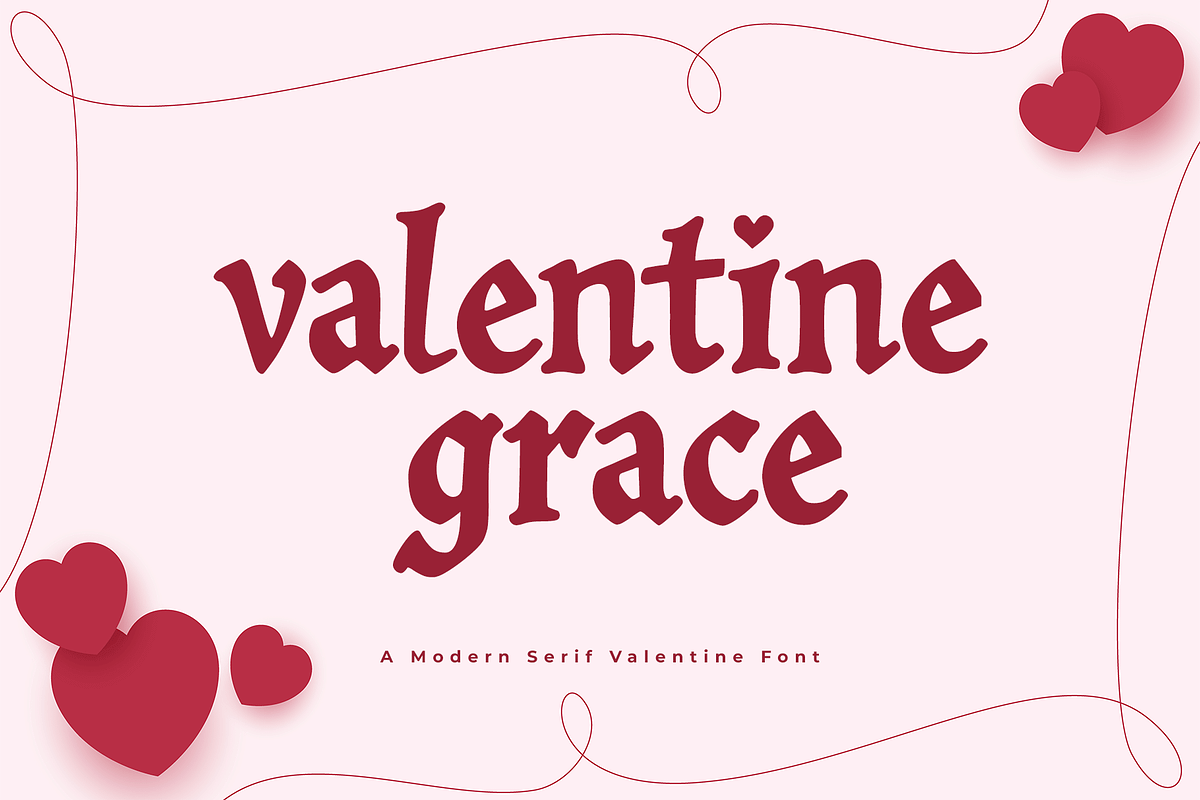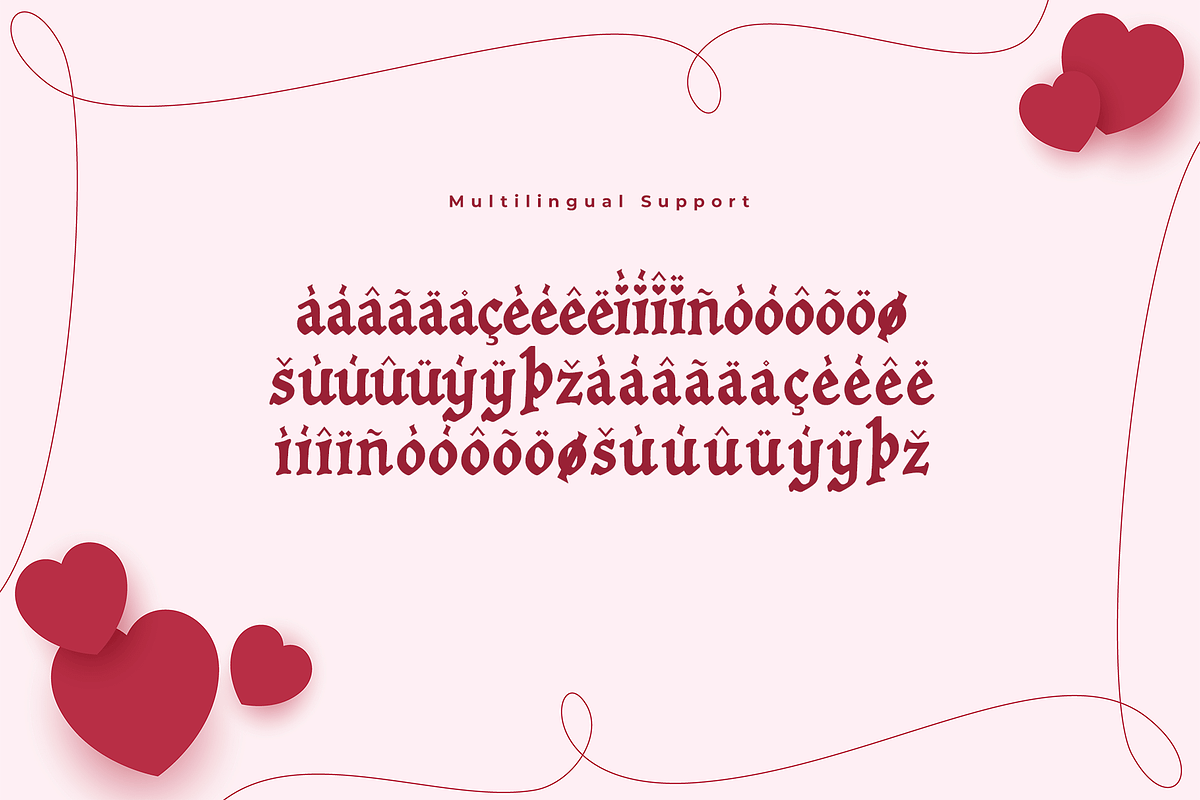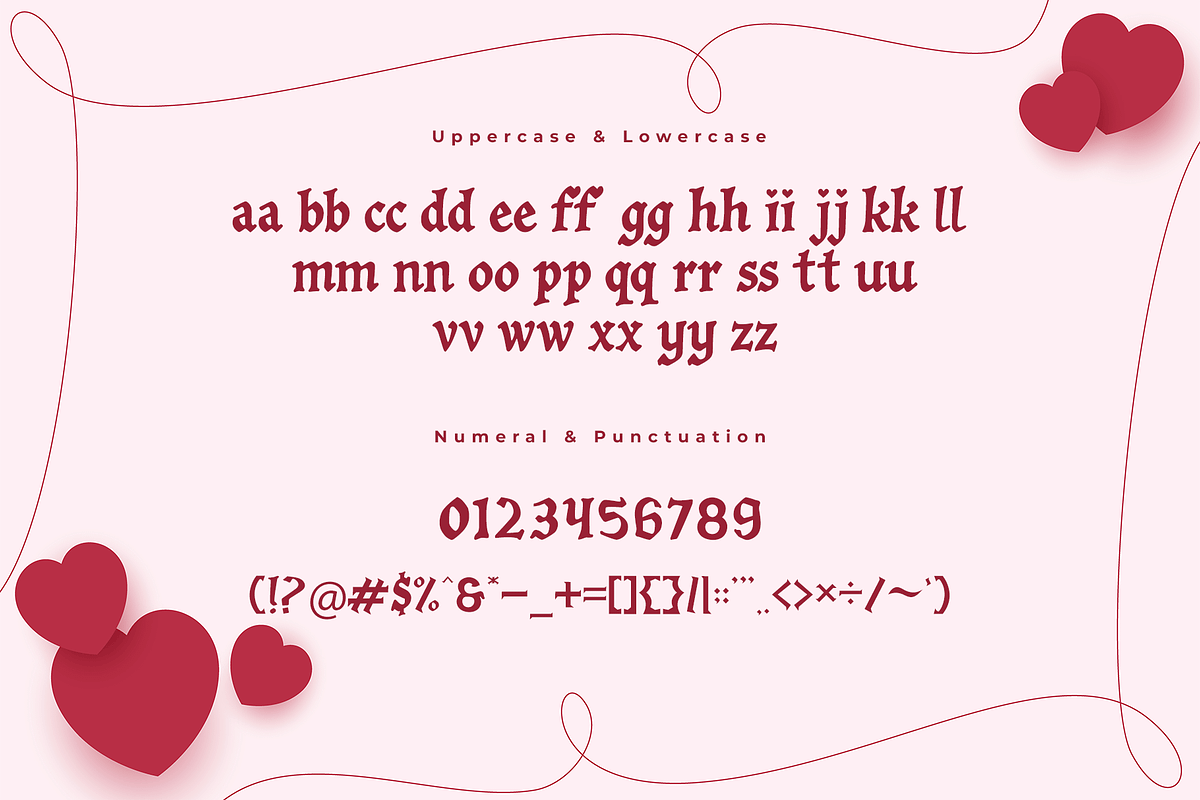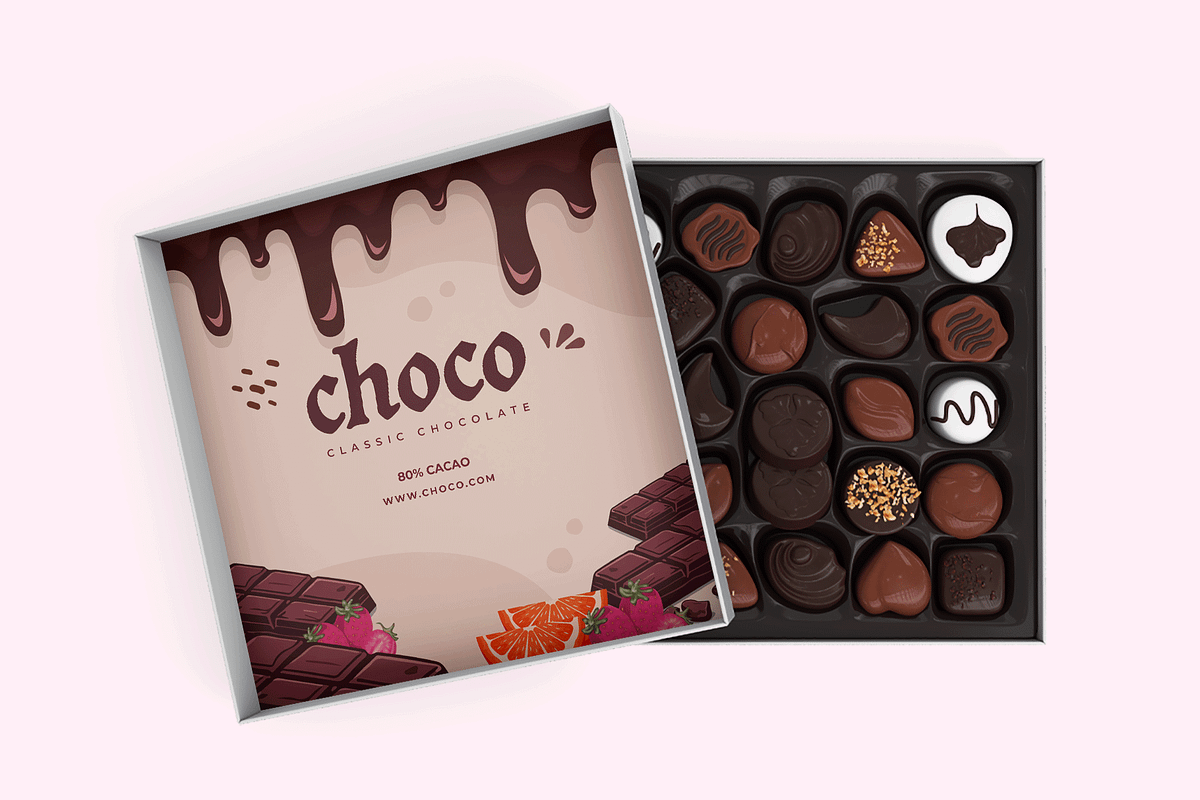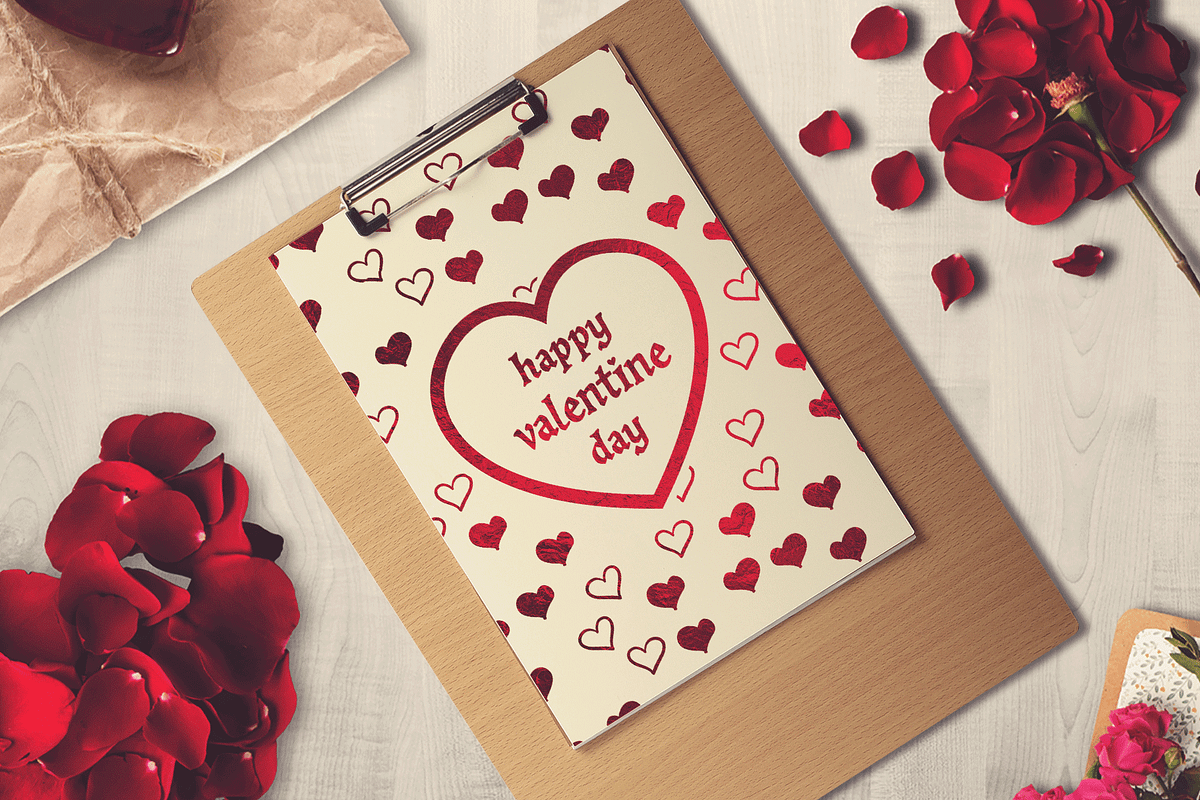
Valentine Grace - A Modern Serif Valentine Font
Celebrate love and grace with Valentine Grace, a modern serif font designed to evoke timeless romance and elegance. This typeface features delicate serifs and smooth curves, making it ideal for Valentine’s Day projects, wedding invitations, romantic branding, and heartfelt quotes.
With its versatile character set and multilingual support, Valentine Grace allows you to craft designs that captivate and inspire. Its stylish swashes and alternates add a unique flair, making every piece a masterpiece. Whether you’re designing greeting cards, editorial layouts, or luxury packaging, this font ensures your work radiates sophistication and charm.